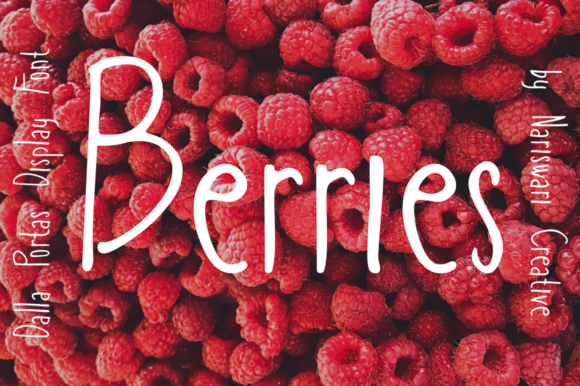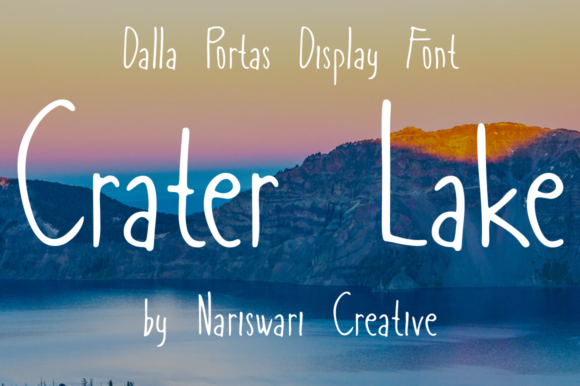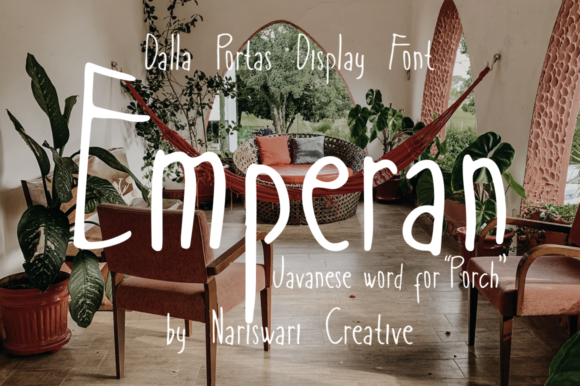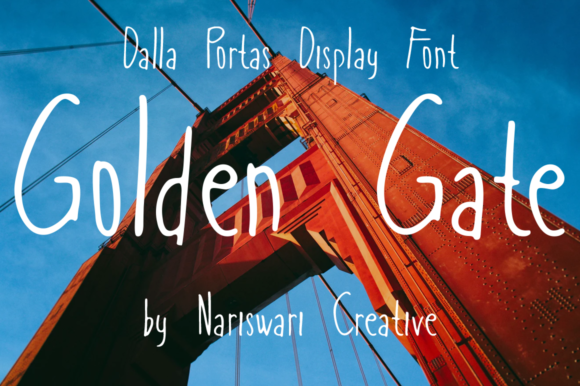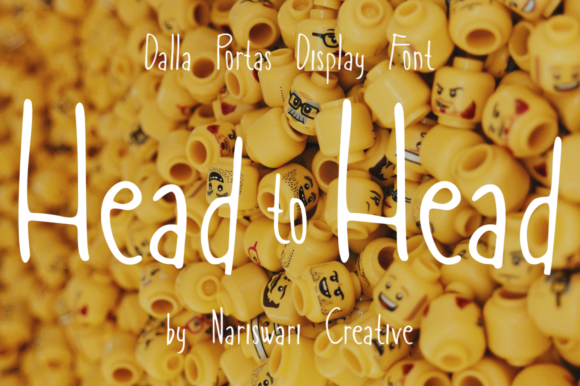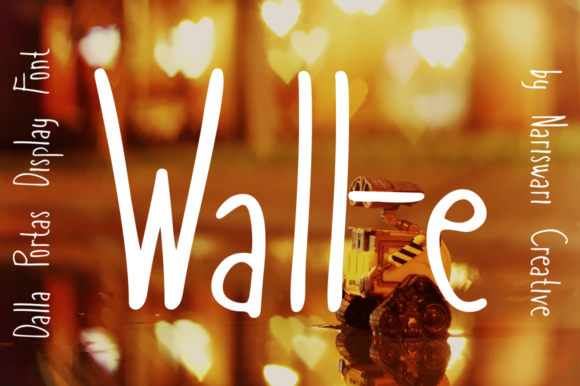
Dalla Porta’s Font: Elevate Your Designs with a Modern, Quirky Handwritten Style
In the realm of typography, fonts play a pivotal role in bringing creativity and personality to designs. Among the myriad of fonts available, Dalla Porta’s font stands out for its modern, tall, and quirky handwritten style. This unique font is engineered to make your designs pop, offering a simple yet distinctive aesthetic that caters to a wide array of creative projects. In this article, we’ll dive into the characteristics of Dalla Porta’s font, its applications, and why it has become a go-to choice for designers and crafters alike.
The Essence of Dalla Porta’s Font
Dalla Porta’s font is distinguished by its tall and quirky handwritten style, which adds a touch of elegance and playfulness to any design. Its simplicity is one of its most compelling features, making it versatile enough to be used in various contexts, from digital media to print materials. The font’s unique characters are designed to capture attention, providing a fresh alternative to more traditional fonts.
Key Features of Dalla Porta’s Font
• Modern Appeal: Dalla Porta’s font boasts a contemporary look that aligns with current design trends. Its modern appeal makes it perfect for projects that require a fresh and updated feel.
• Tall and Quirky: The tall letters contribute to its stand-out feature, while the quirky elements add a playful touch, making it suitable for designs that aim to engage and entertain.
• Handwritten Style: The font’s handwritten nature gives it a personal and approachable feel, ideal for brands or projects looking to establish a friendly and relatable image.
• Simple and Unique: Despite its uniqueness, the font maintains a level of simplicity that ensures readability and versatility across different mediums.
Applications of Dalla Porta’s Font
The versatility of Dalla Porta’s font makes it suitable for a multitude of applications. Here are some of the areas where this font truly shines:
• Branding and Logos: For businesses looking to create a memorable brand identity, Dalla Porta’s font offers a distinctive style that can help a brand stand out.
• Digital Media: Whether it’s for website headers, social media graphics, or digital advertisements, this font can add a modern and engaging touch to your online presence.
• Print Materials: From brochures and posters to business cards and invitations, Dalla Porta’s font can elevate the visual appeal of any print material.
• Packaging: For product packaging, this font can contribute to creating an eye-catching design that captures consumer attention.
Why Designers and Crafters Love Dalla Porta’s Font
Designers and crafters appreciate Dalla Porta’s font for its ability to bring a unique flair to their projects. Here are a few reasons why it has become a favorite:
• Ease of Use: The font’s clear and readable style ensures that it can be used in a variety of contexts without compromising on legibility.
• Customization: Dalla Porta’s font can be easily customized to fit the specific needs of a project, allowing for creative freedom and flexibility.
• Emotional Connection: The handwritten and quirky nature of the font helps create an emotional connection with the audience, making designs more relatable and engaging.
Dalla Porta’s font is a powerful tool in the world of design, offering a perfect blend of modernity, quirkiness, and simplicity. Its tall and quirky handwritten style makes it an excellent choice for designers and crafters looking to add a distinctive touch to their projects. Whether you’re working on branding, digital media, print materials, or packaging, Dalla Porta’s font can help elevate your designs and make them stand out in a crowded creative landscape. Embrace the unique qualities of Dalla Porta’s font and discover how it can transform your creative ideas into visually stunning realities.